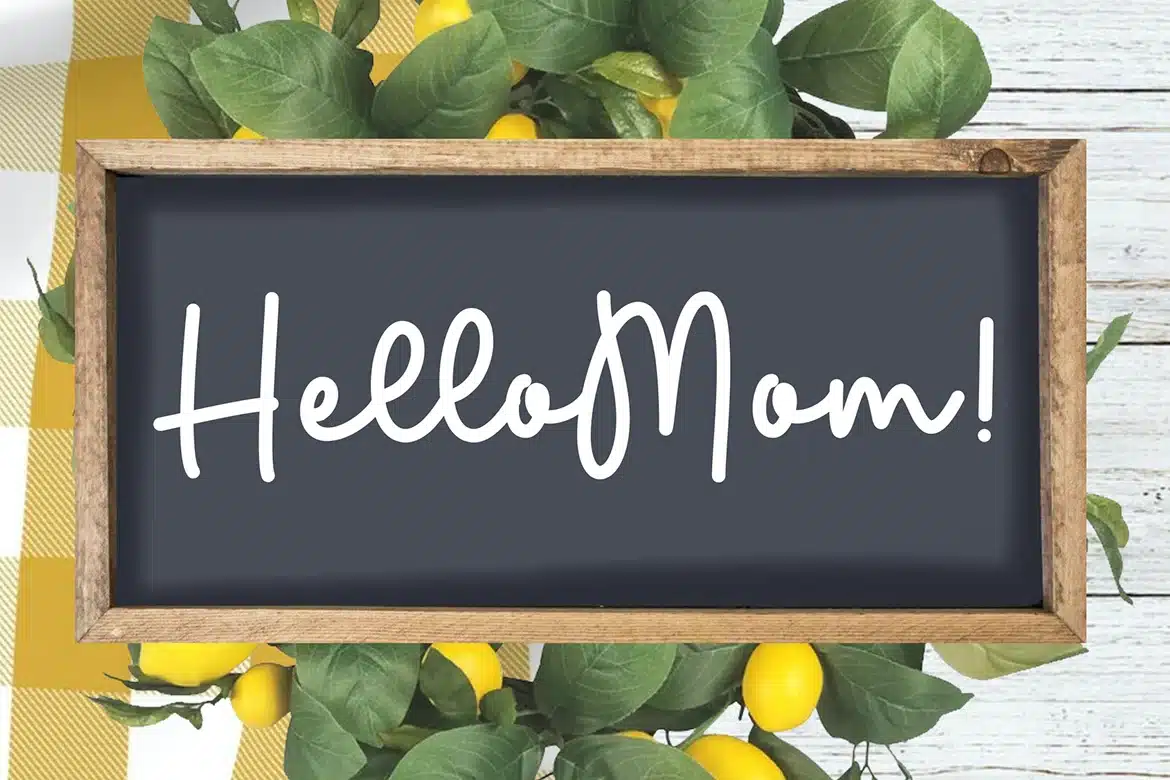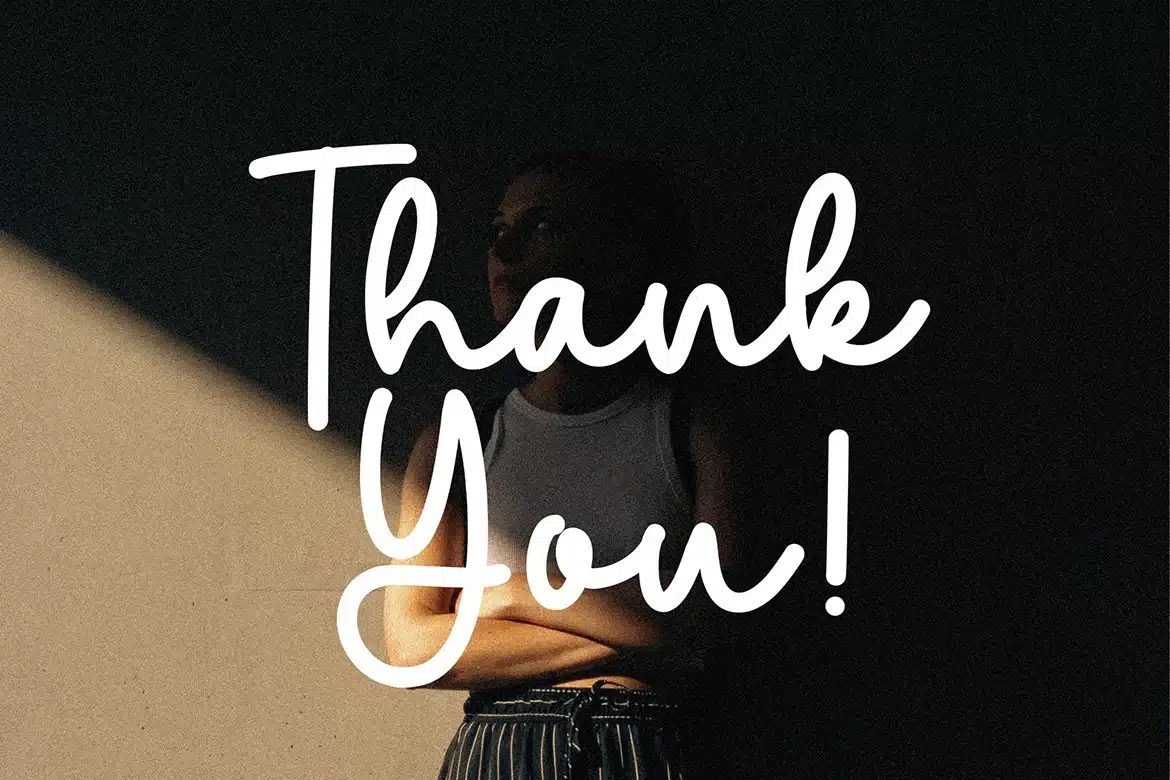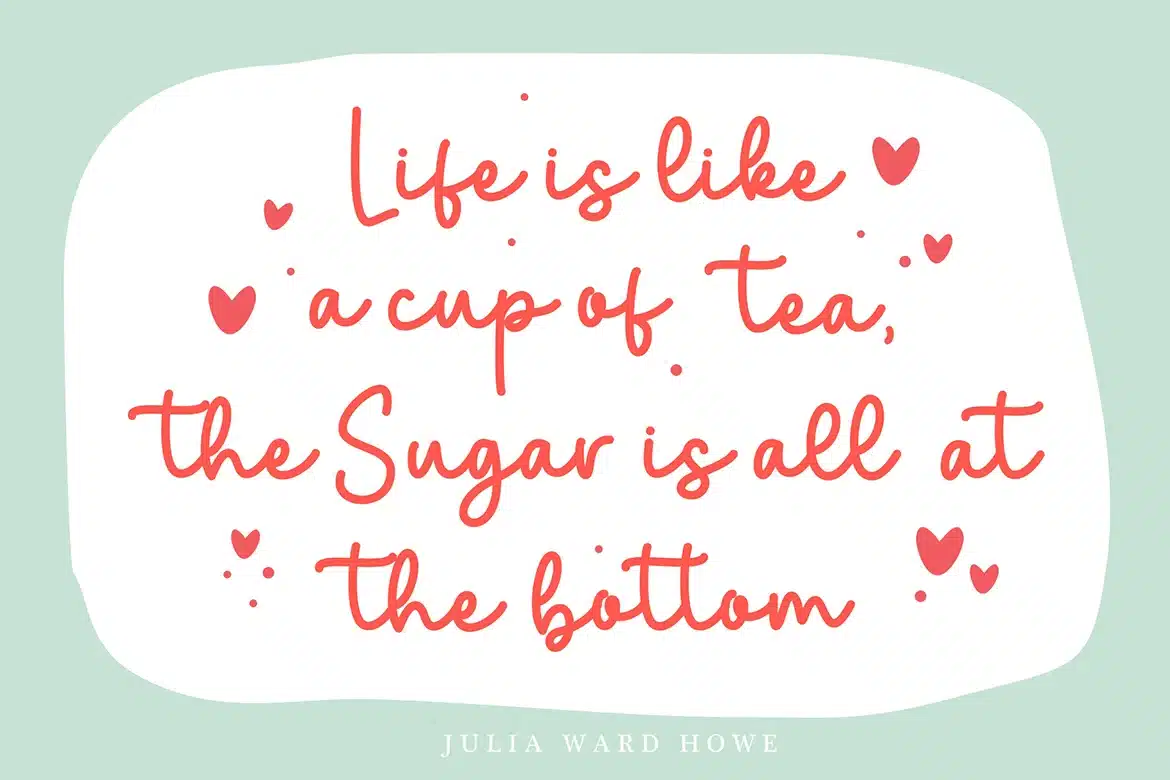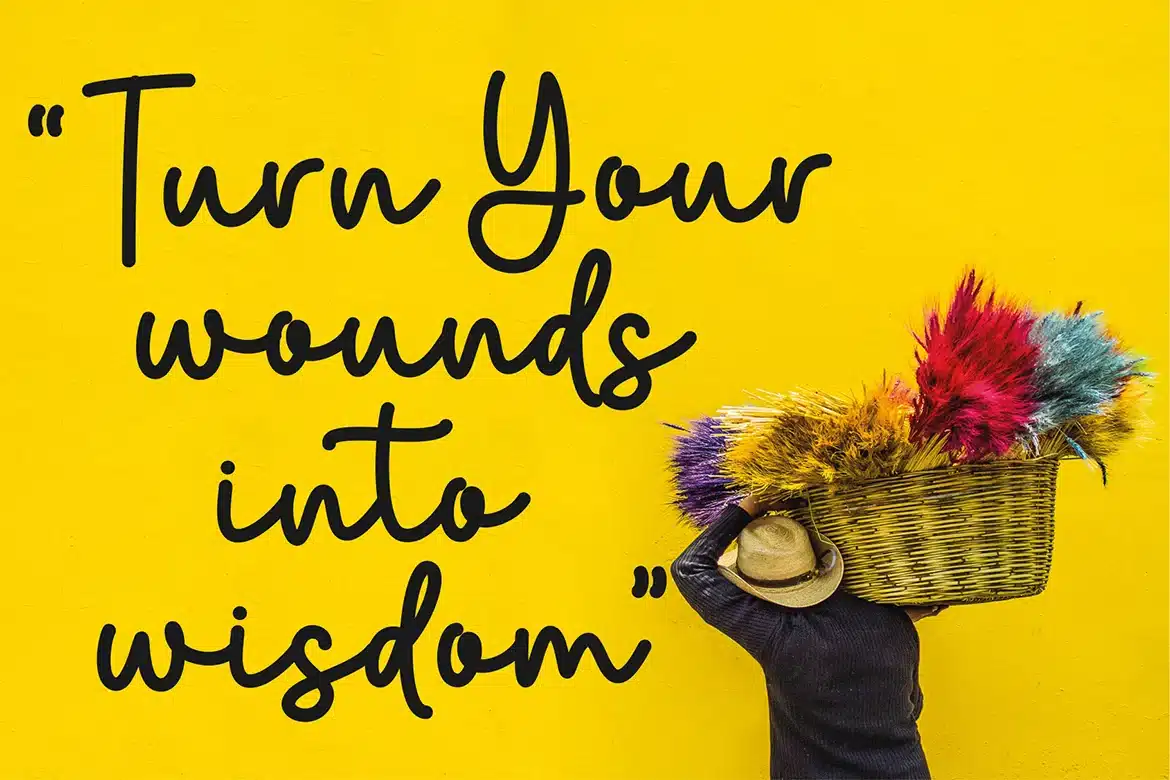
Cutegirl – quirky script font
Cutegirl is a quirky script font, perfect for crafting, branding, invitation, stationery, wedding designs, social media posts, advertisements, product packaging, product designs, label, Posters, photography, special events, or anything.